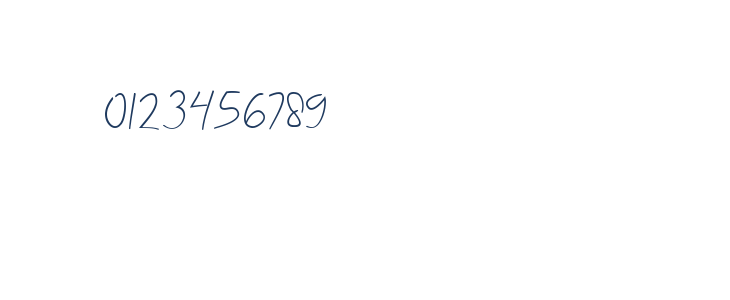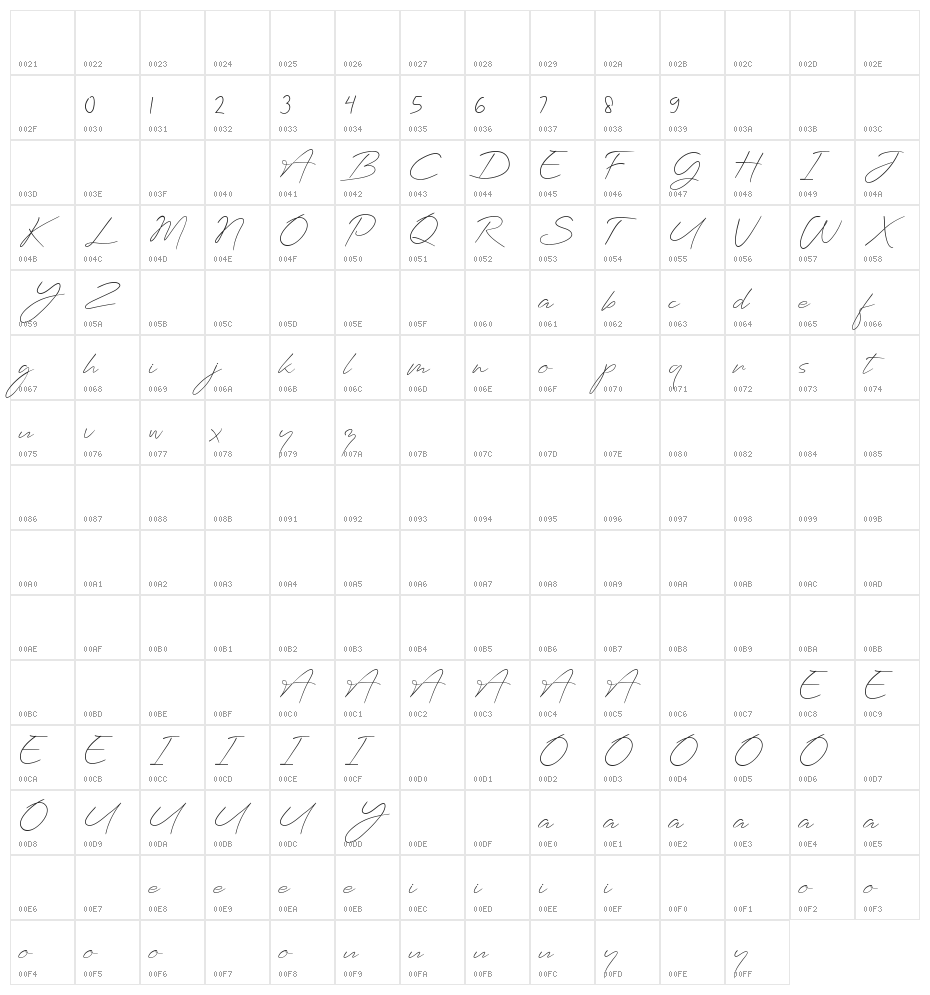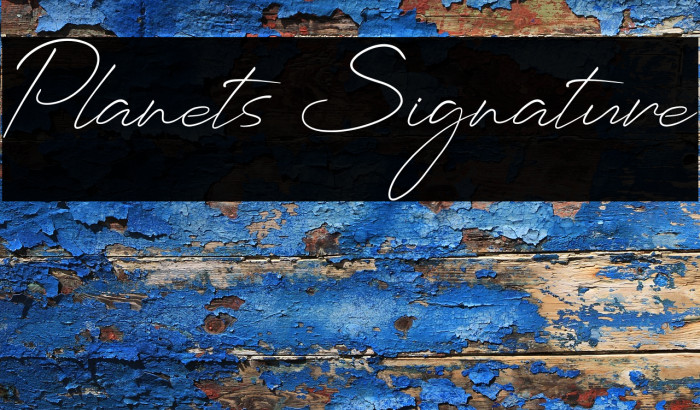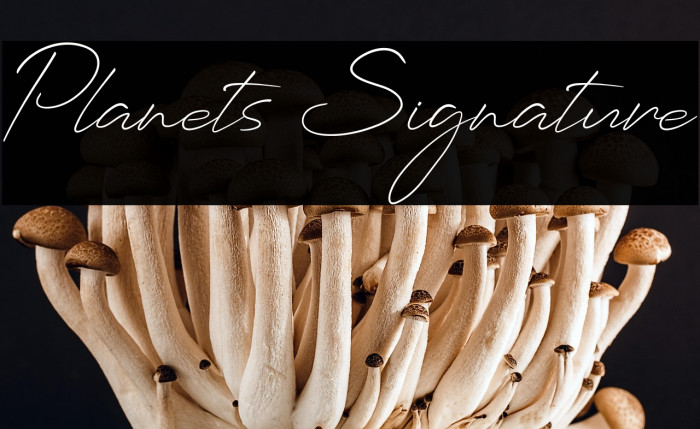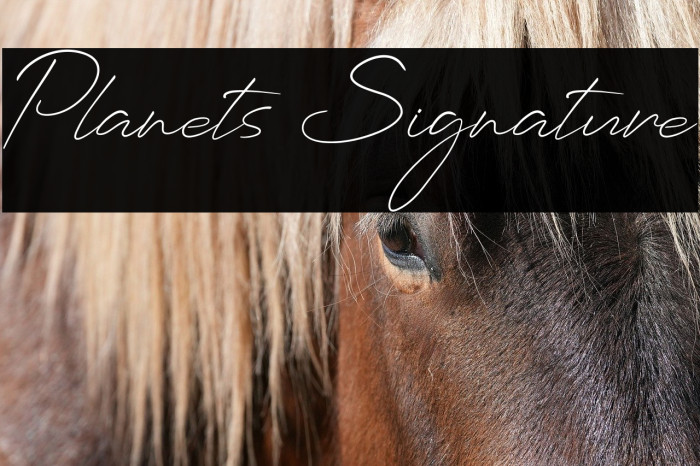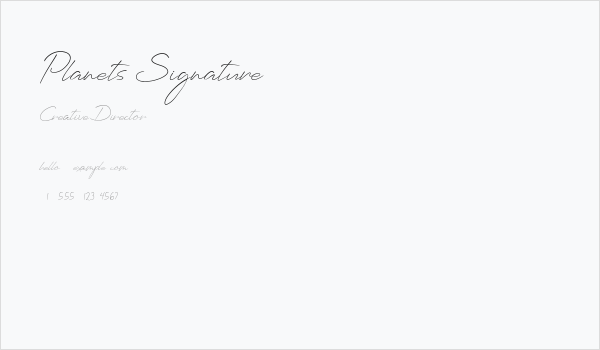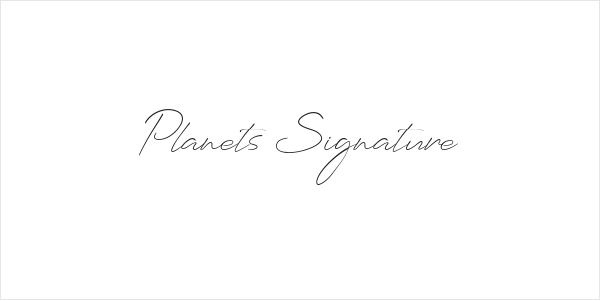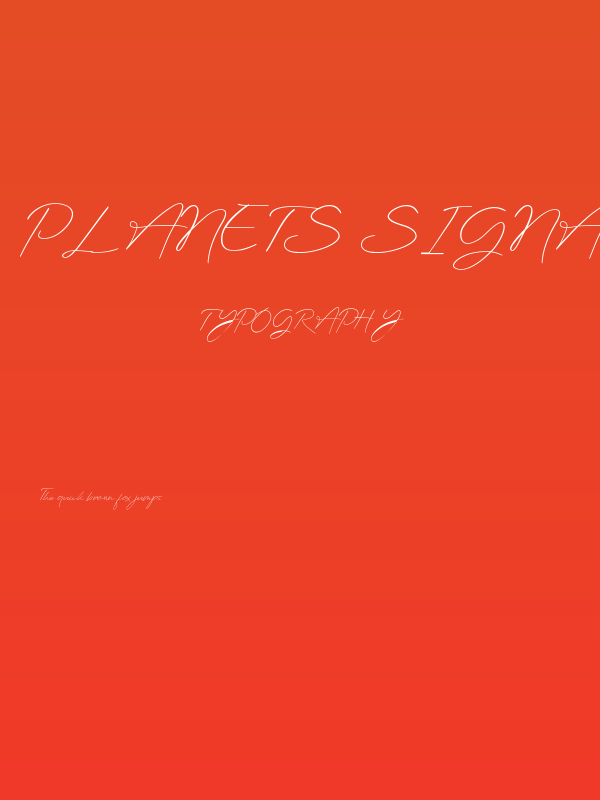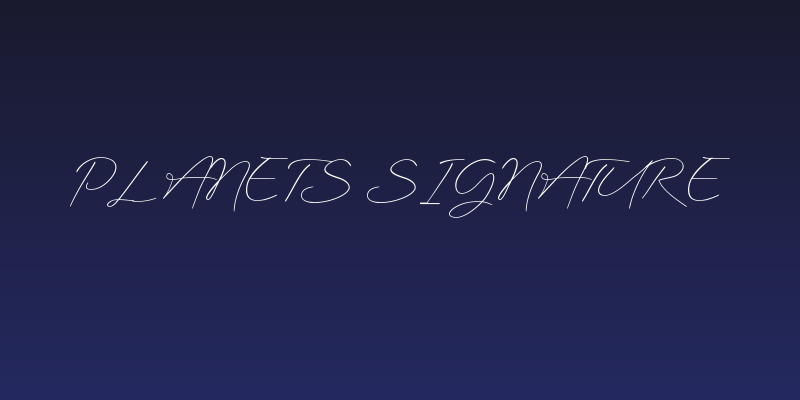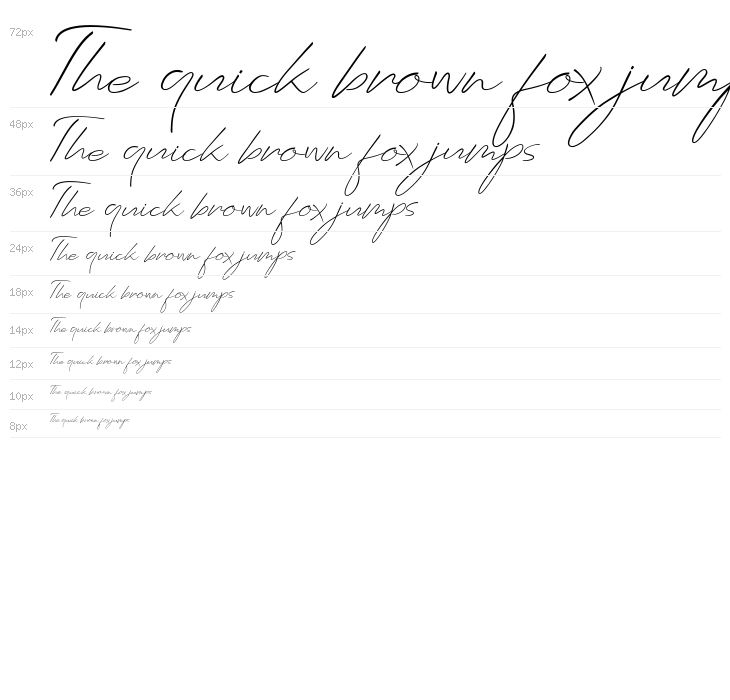
Planets Signature Font
Planets Signature Description
This elegant script font exudes a sense of sophistication and fluidity, characterized by its smooth, flowing lines and graceful curves. The uppercase letters are slightly more structured, maintaining a balance between formality and artistic flair. The lowercase letters are more fluid, with some letters connecting seamlessly, enhancing the handwritten feel. The numerals are clear and consistent, complementing the overall style. This font's delicate strokes and slight slant give it a refined, personal touch, making it ideal for projects that require a touch of elegance and individuality.
| Overall Style | Elegant, Handwritten |
| Use Case | Logos, Invitations, Personal branding |
| Proposed Projects | Ideal for wedding invitations, personal branding, elegant stationery, and signature logos. |